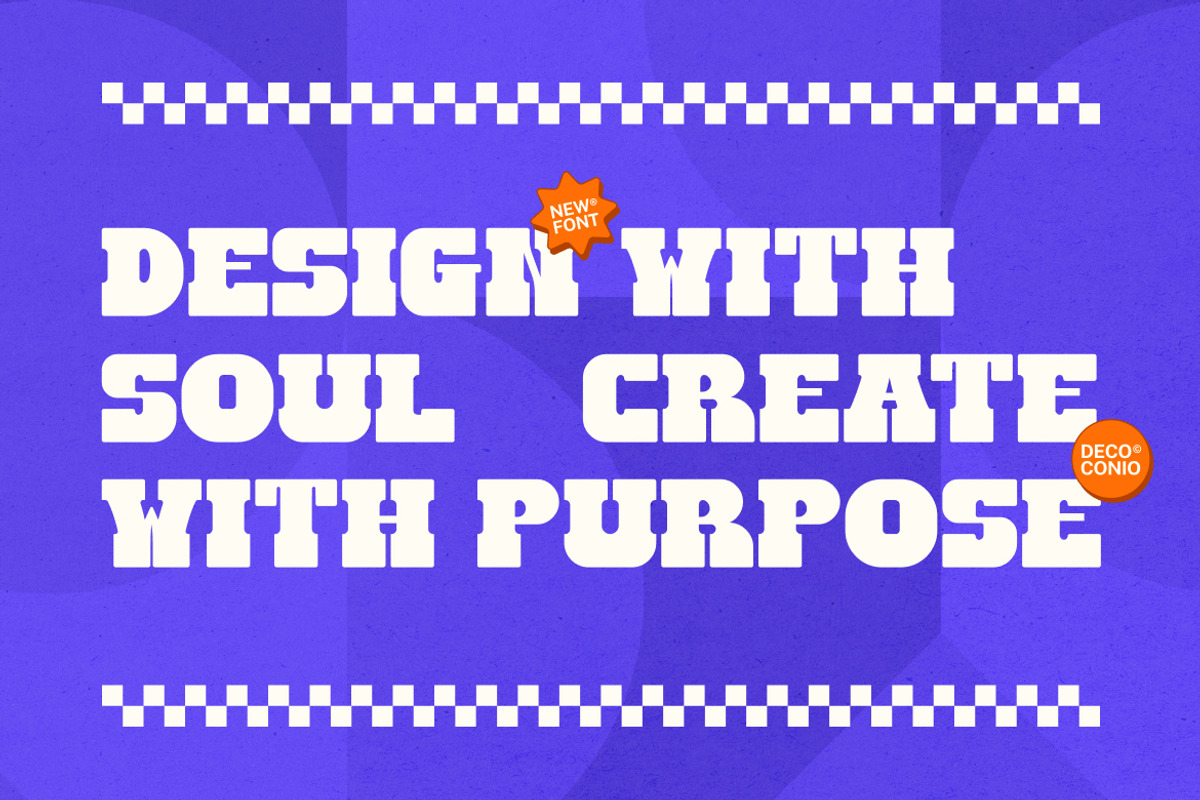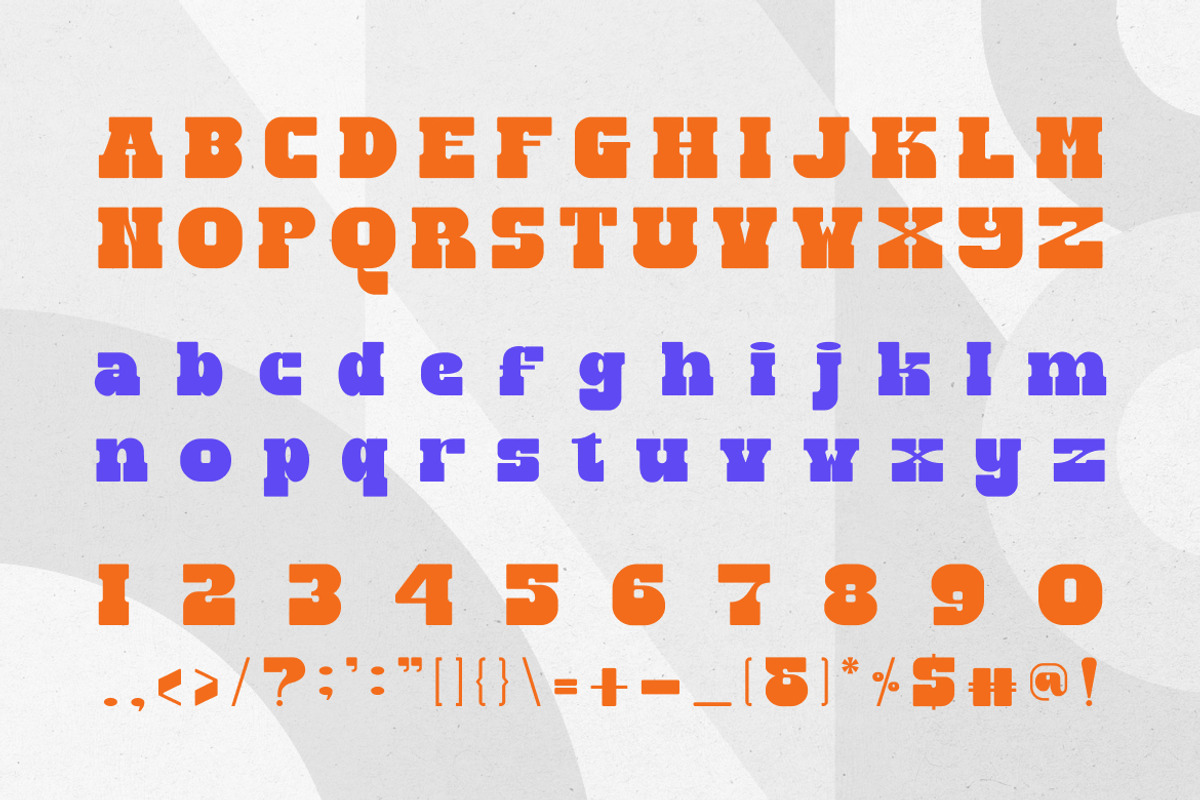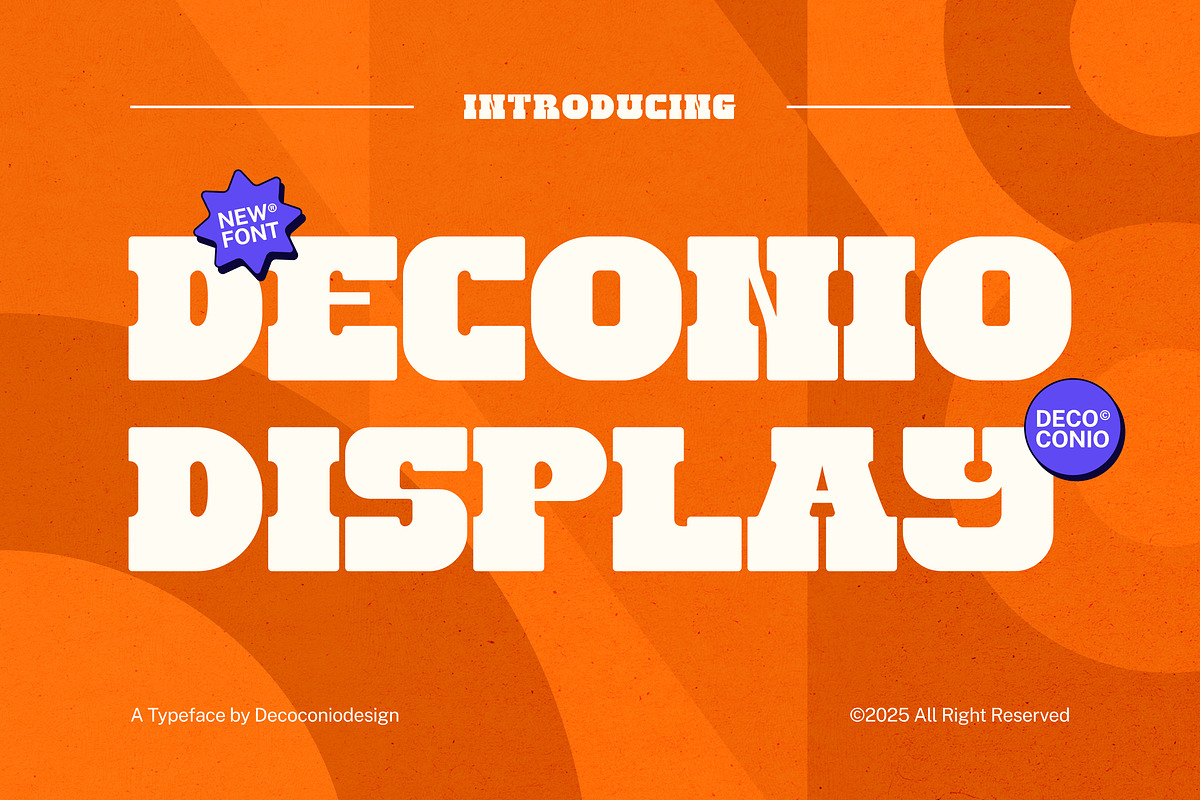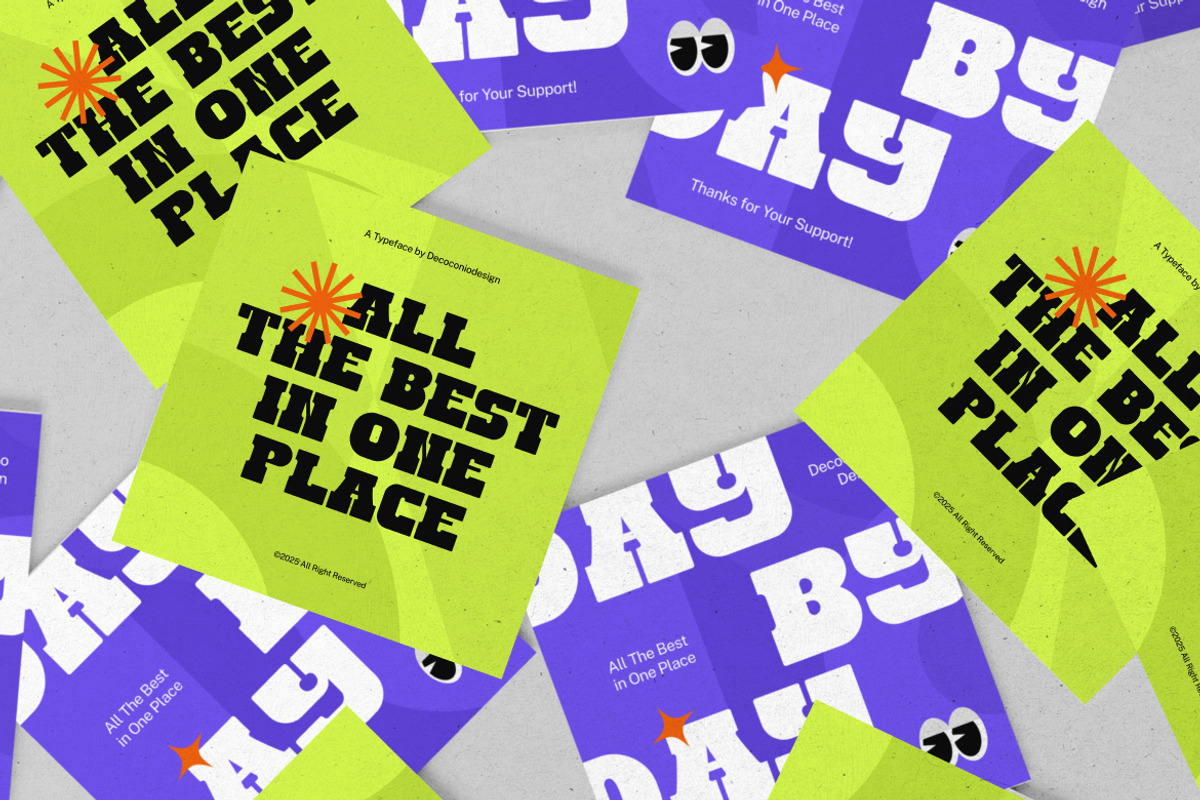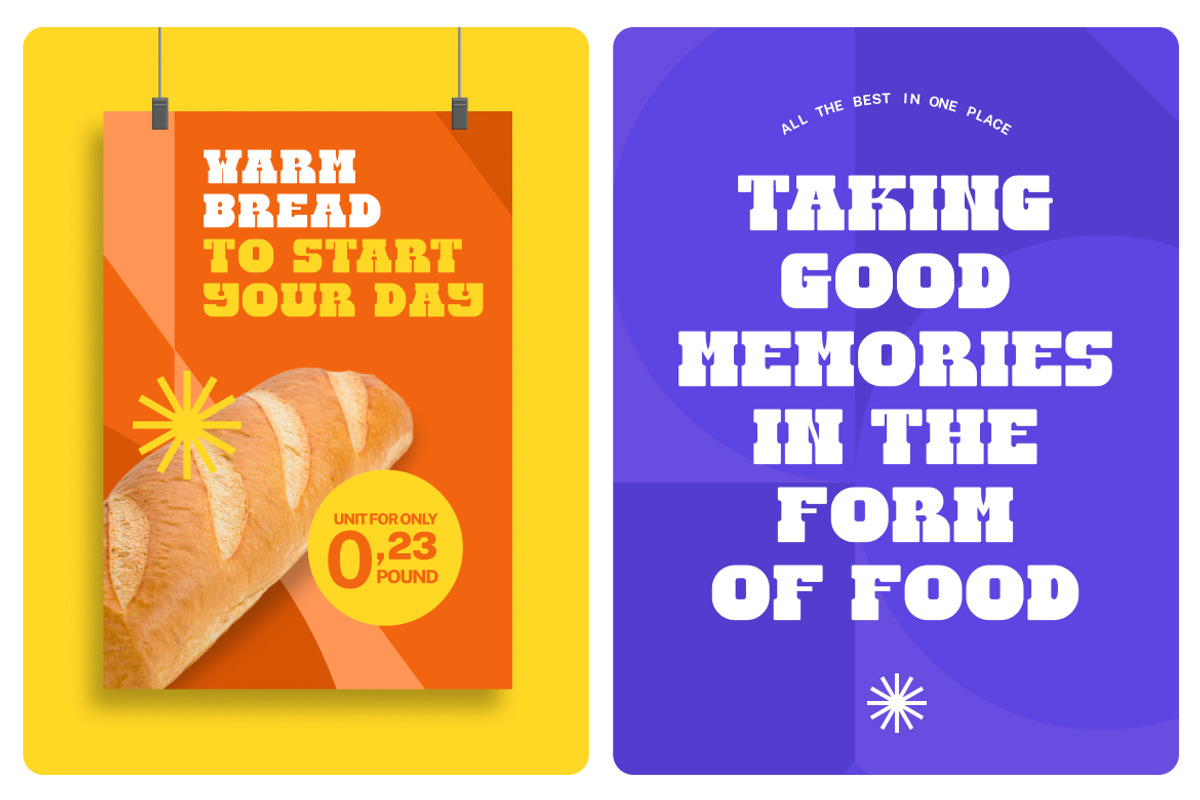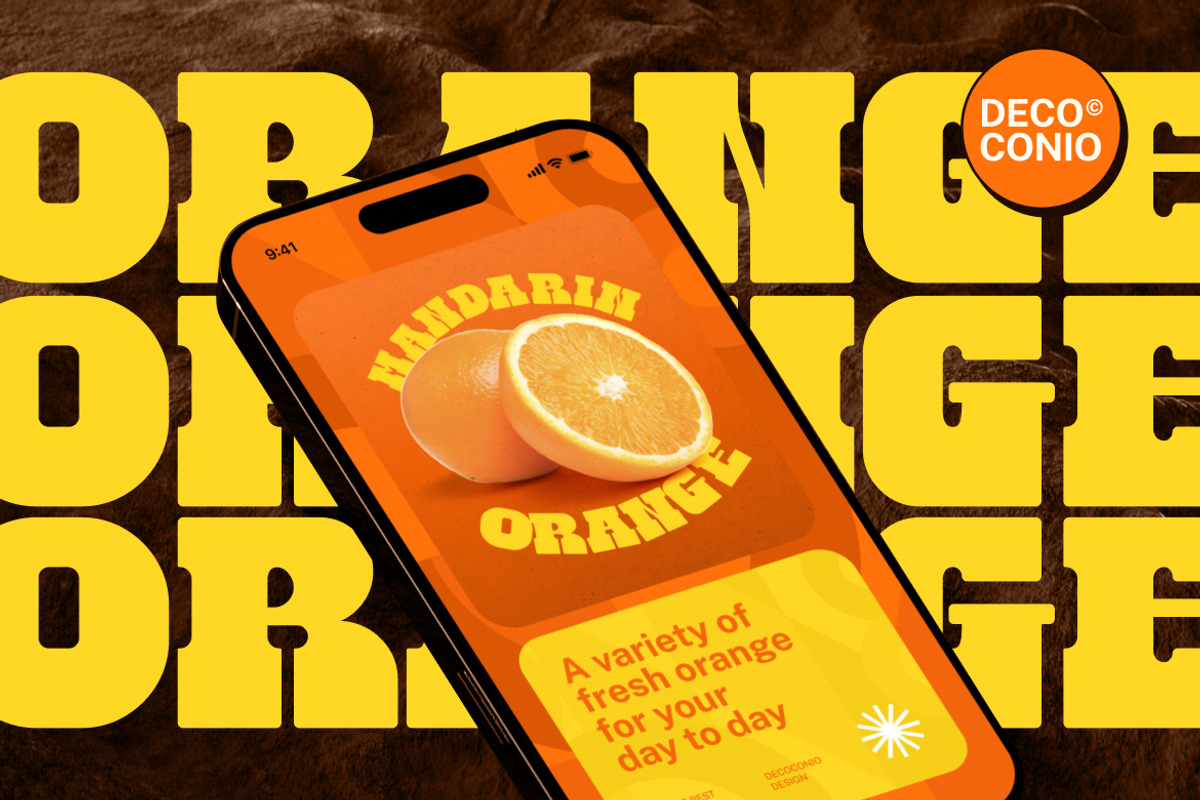
Deconio Display
Introducing Deconio Display a retro sans serif font with a bold and commanding presence. Its hefty weight ensures high visibility, making it perfect for titles, headlines, and packaging designs that demand attention.
Deconio Display features subtly rounded edges, balancing its strong, assertive form with a touch of softness. Blending vintage aesthetics with modern clarity, this typeface is designed to make a statement wherever it’s used.